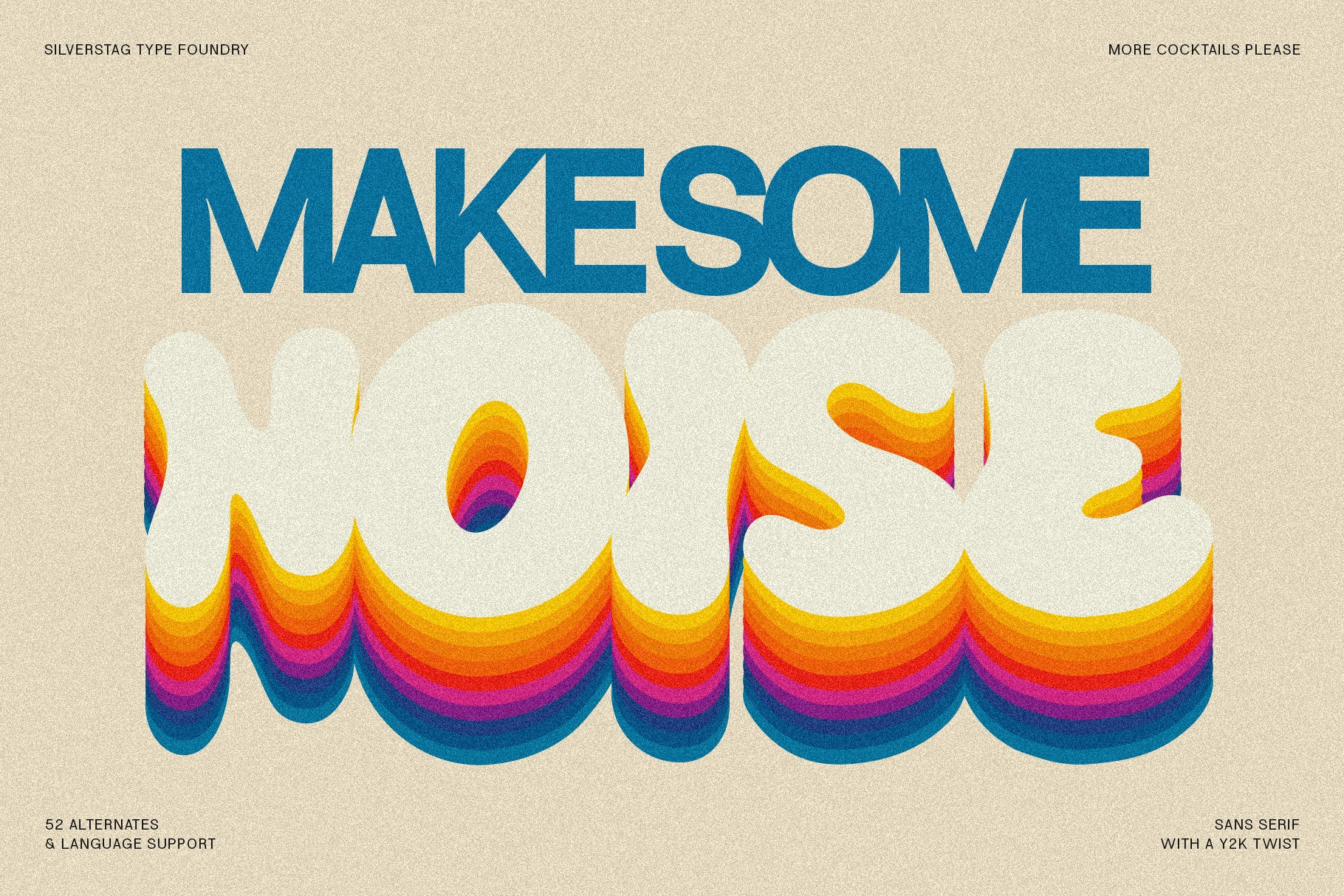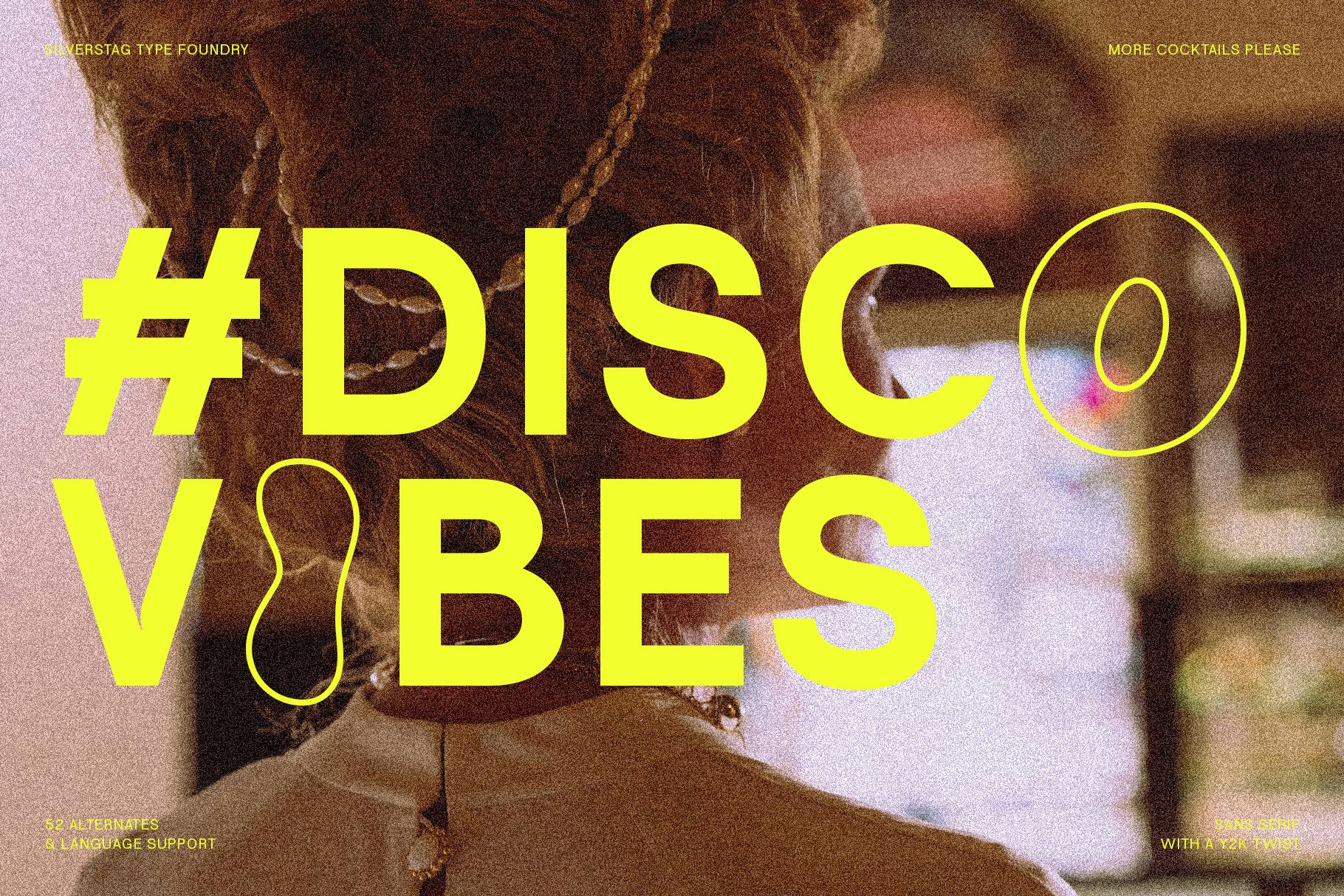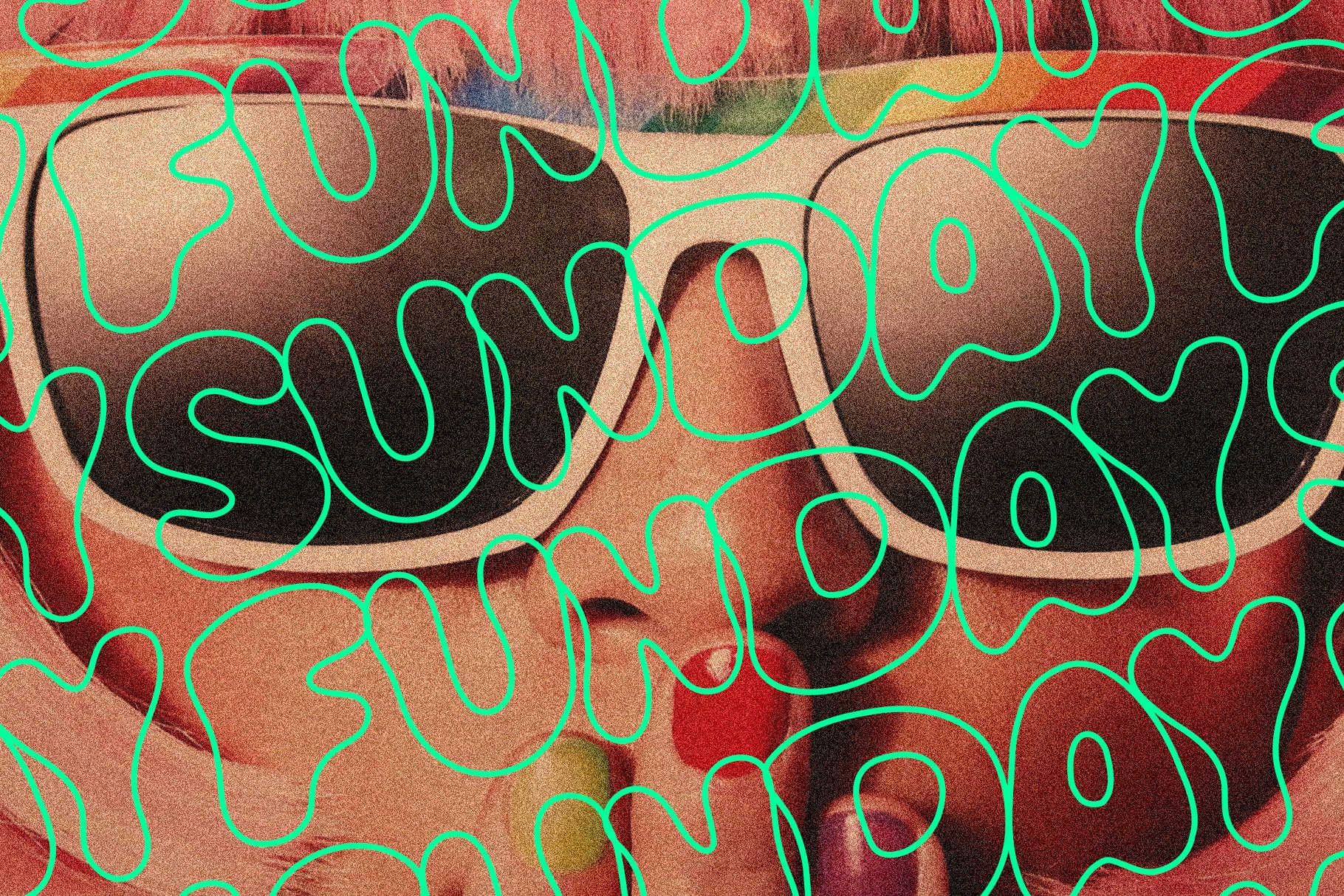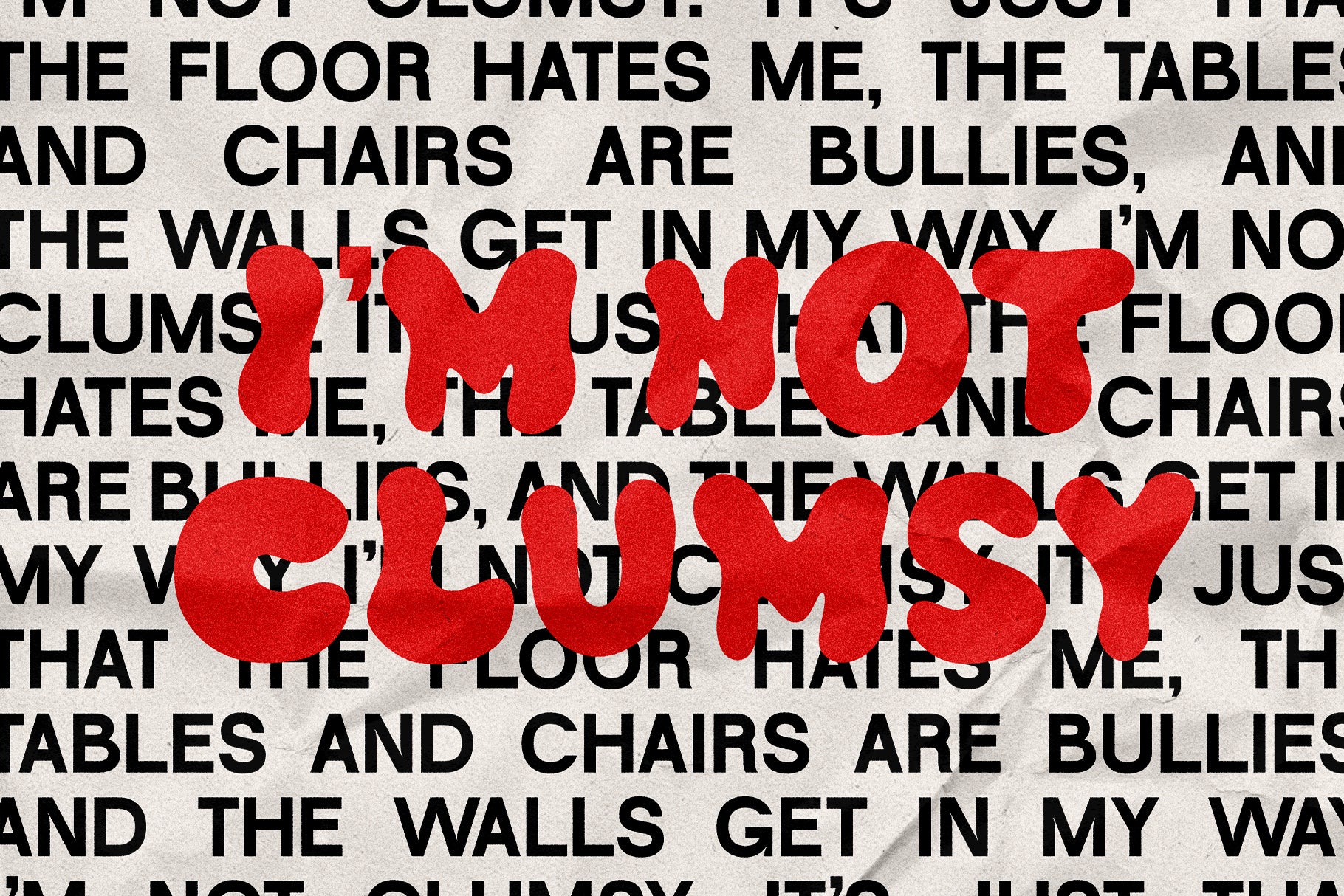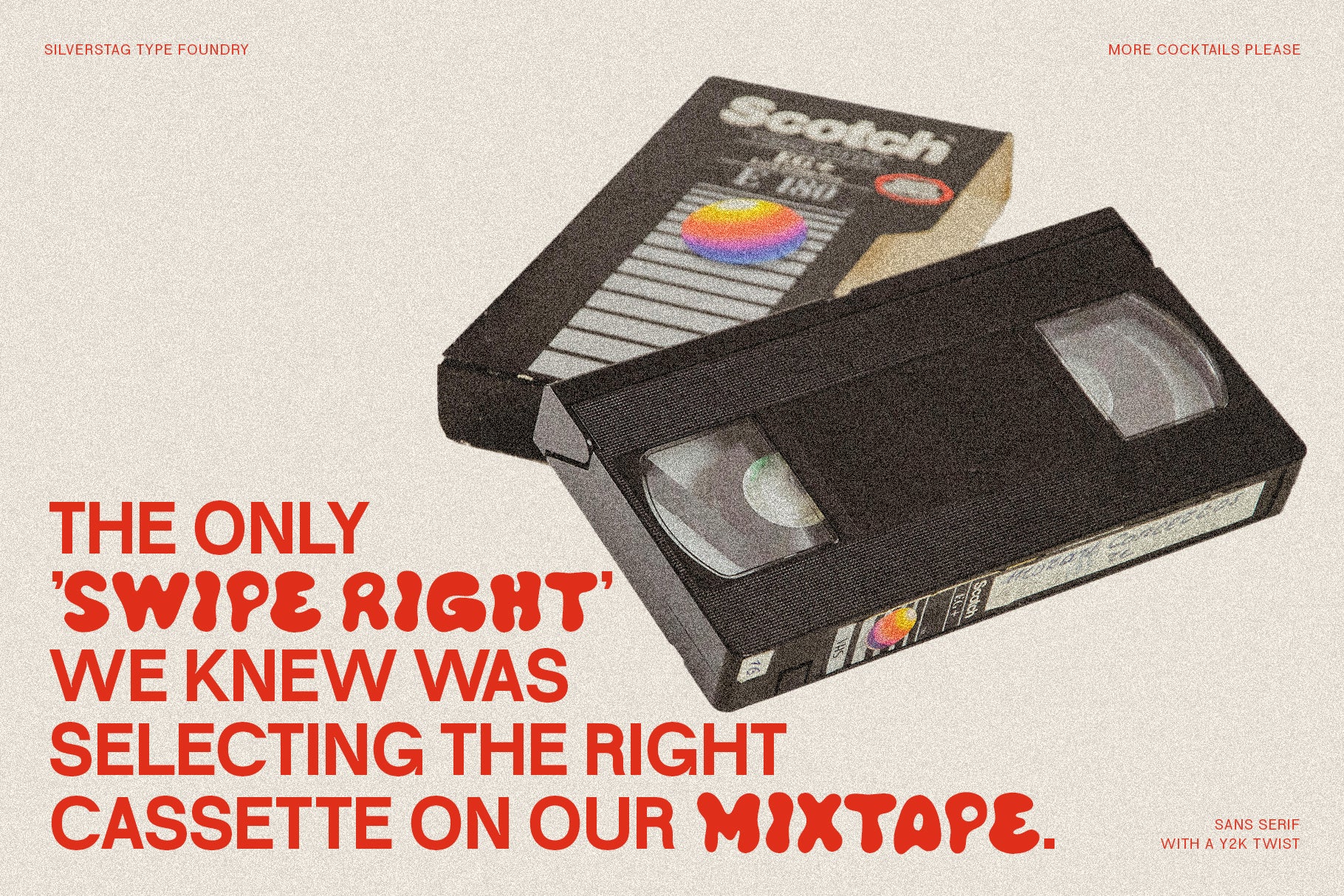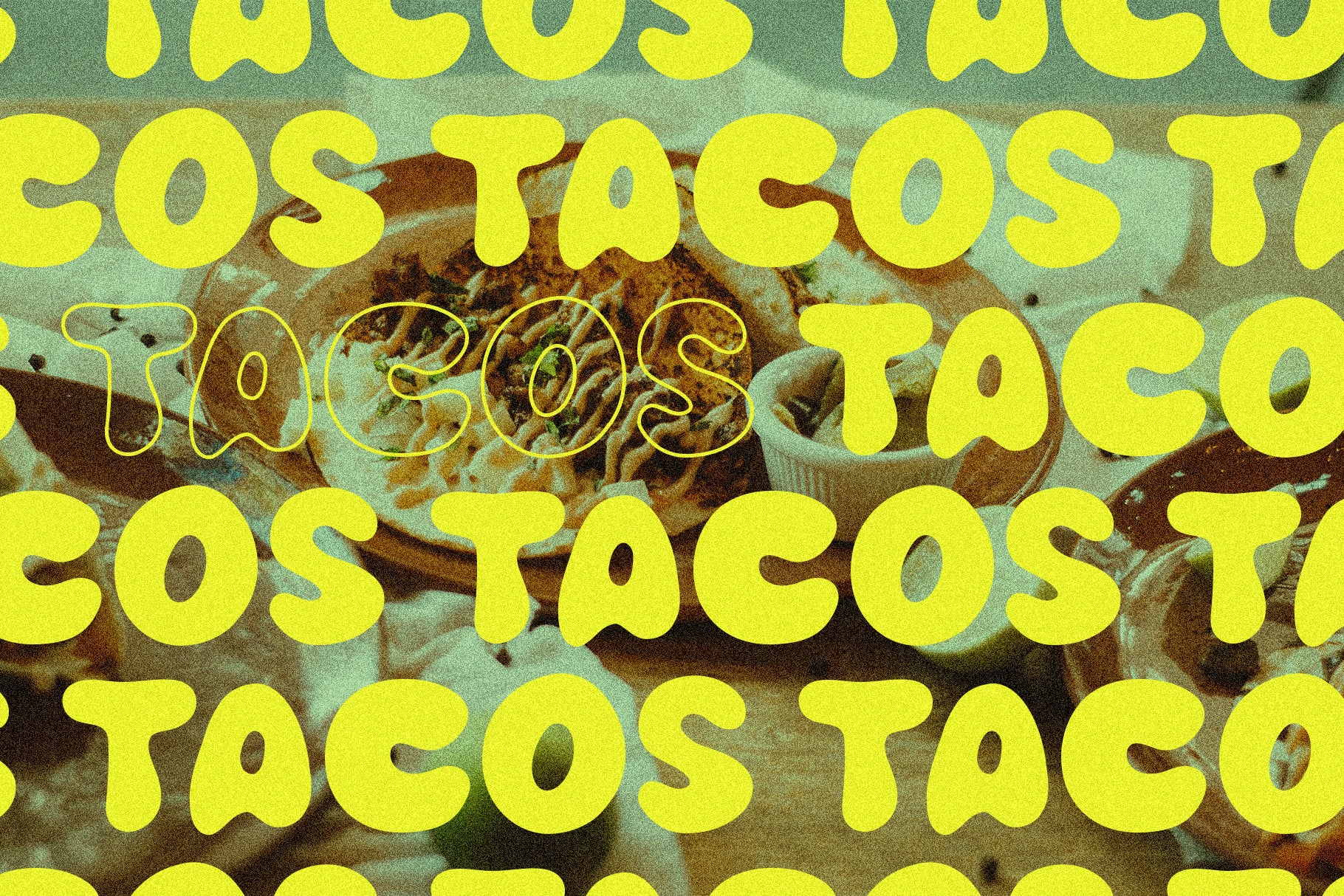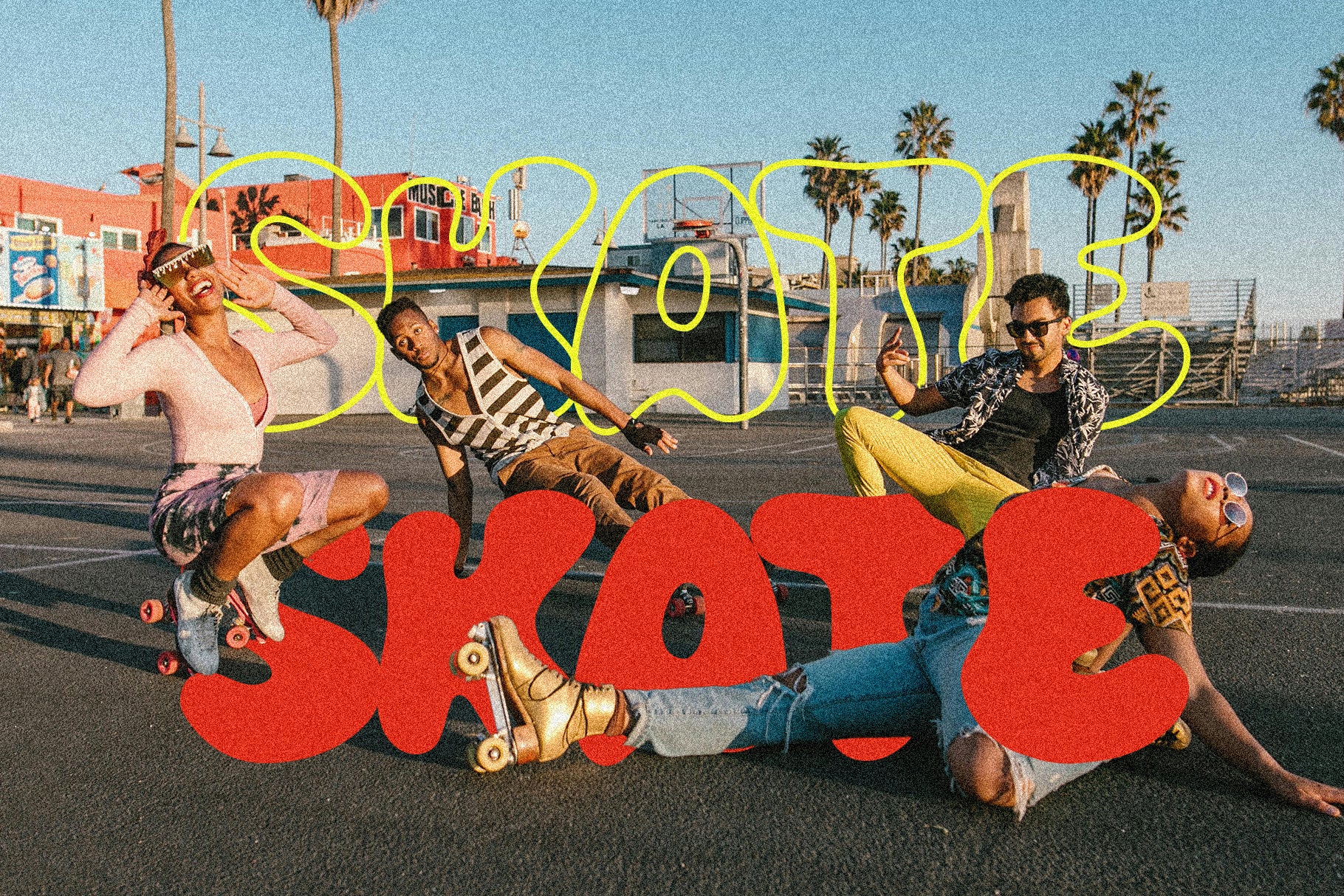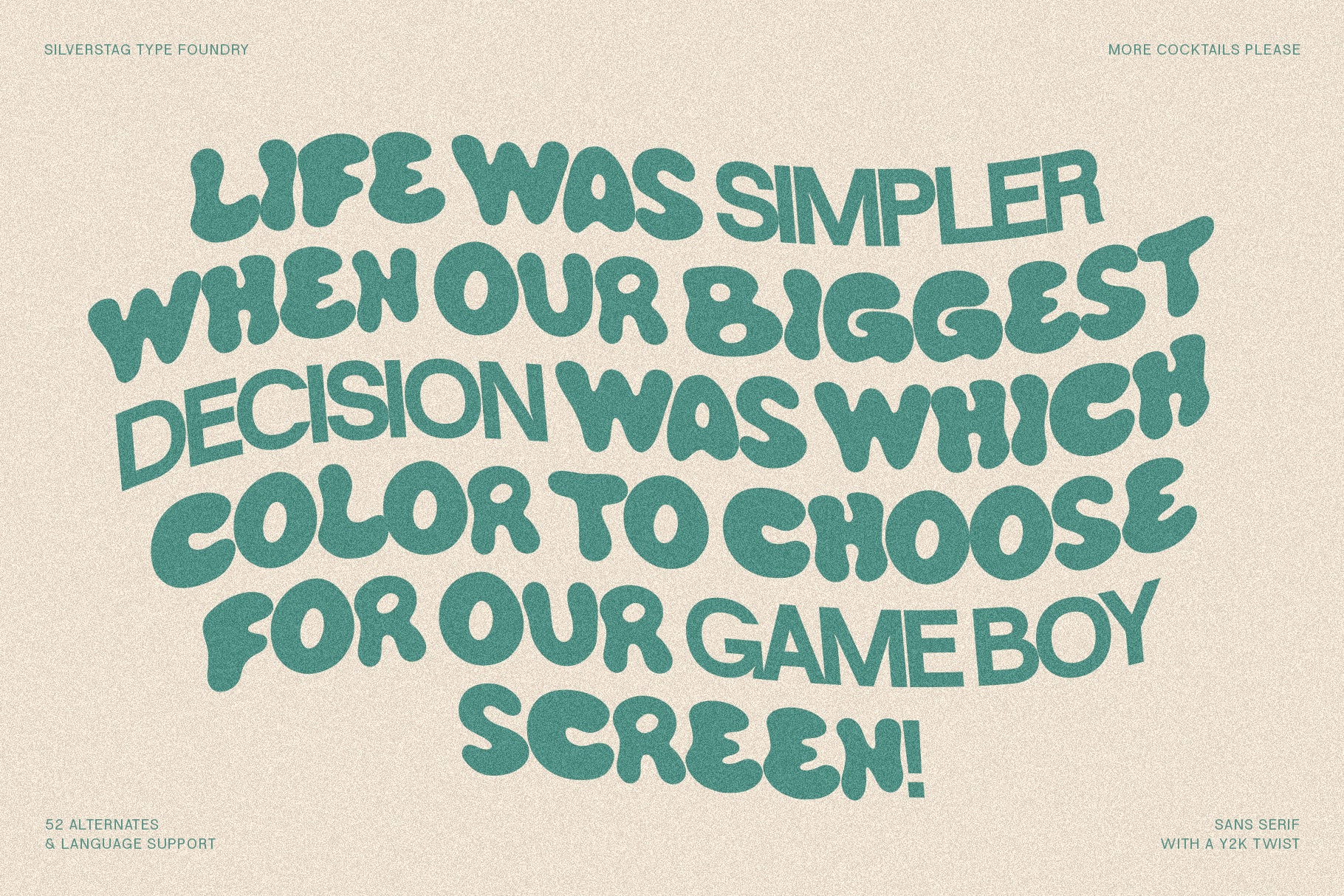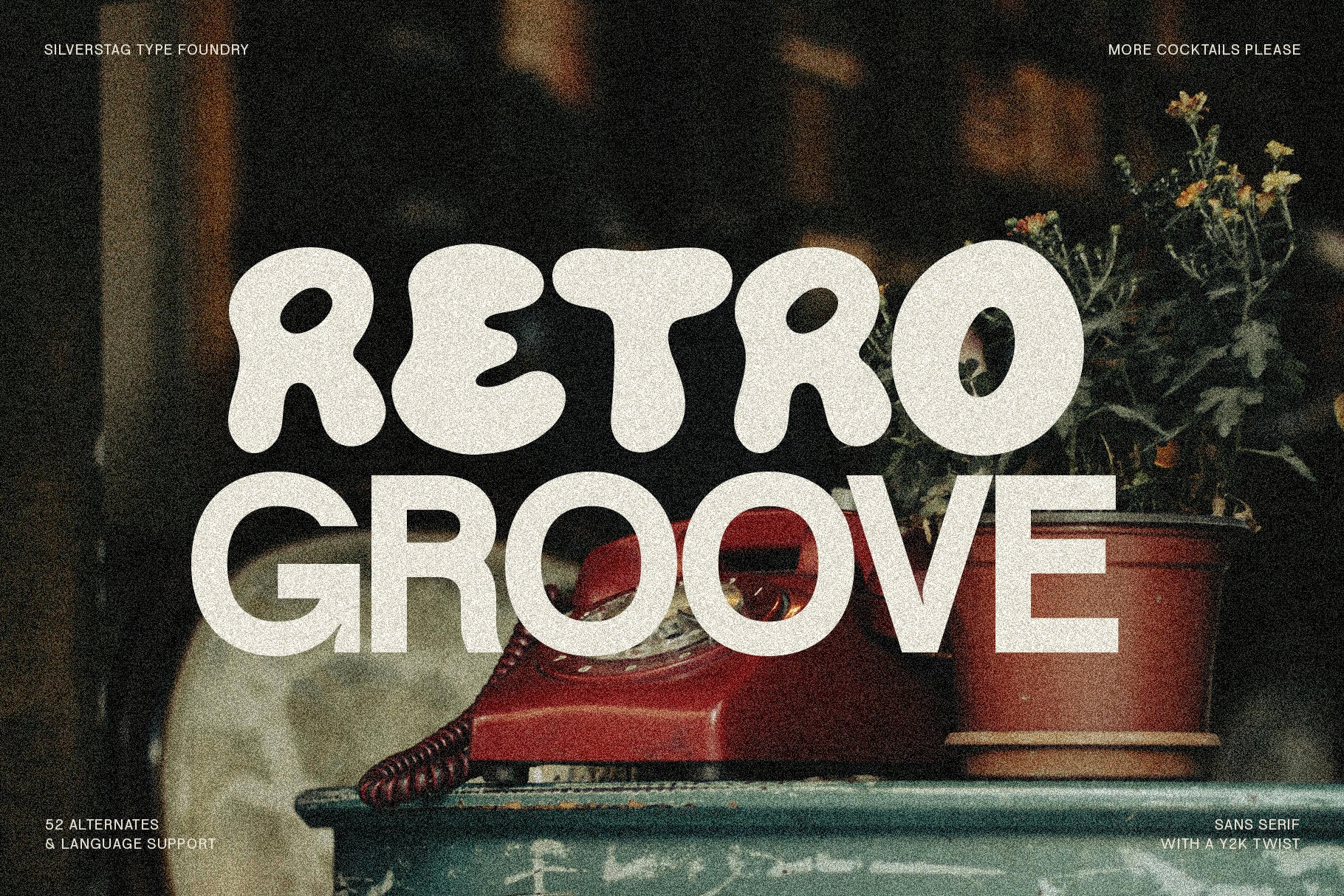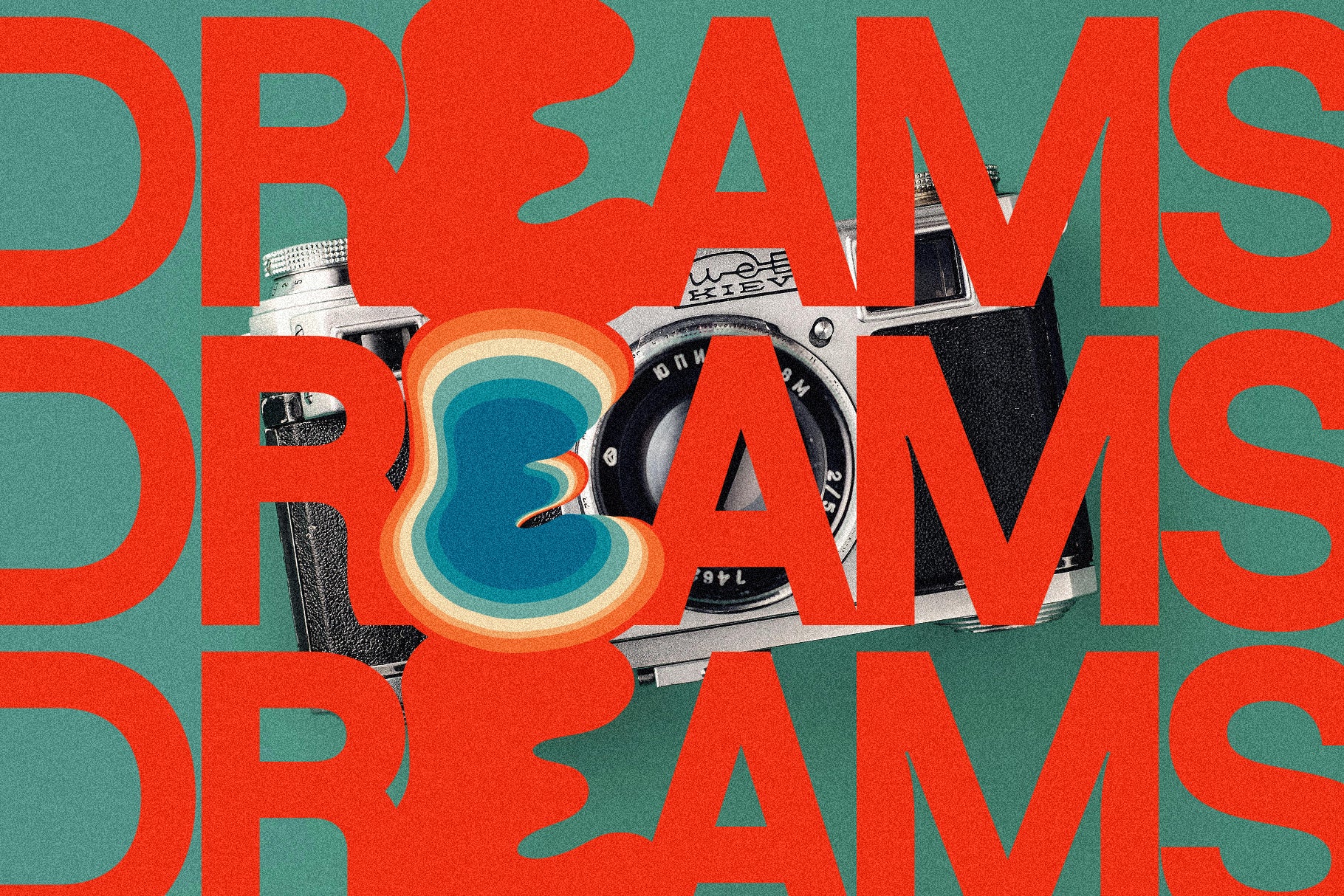
More Cocktails Please is a bold and bubbly retro font inspired by the vibrant typography of the Y2K era. With its curvy lines, playful energy, and funky alternates, this typeface captures the spirit of early 2000s design while giving you the tools to create modern, eye-catching visuals.
This font includes two uppercase styles—a clean, bold sans serif and a hand-drawn alternate set with whimsical curves and bubbly character. Combine them for dynamic typography full of personality and charm.
With over 52 ligatures and alternates, More Cocktails Please lets you customize your lettering with fluid transitions, creative details, and a dash of attitude. It’s perfect for bold logos, fun editorial headlines, posters, merch design, or anything that calls for retro flair with a fresh twist.
More Cocktails Please supports over 90 languages, making it a globally adaptable display font that’s as versatile as it is unforgettable.